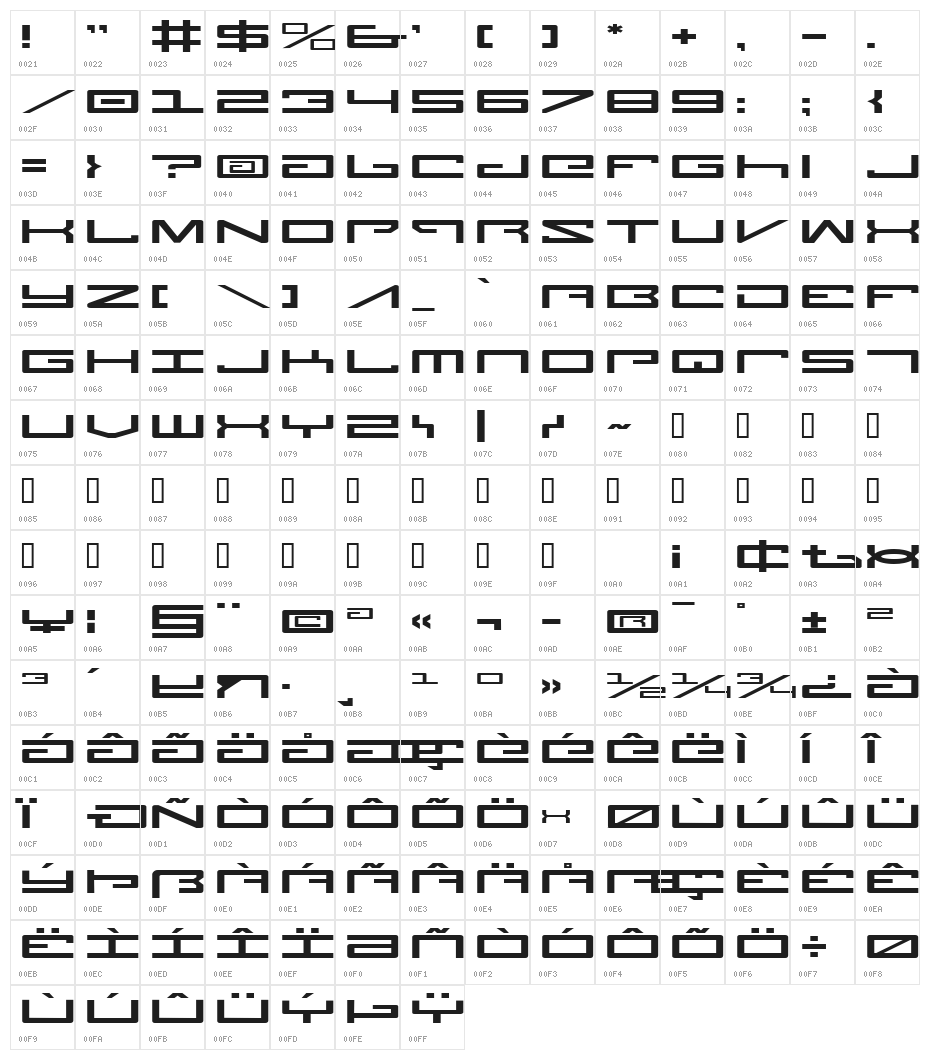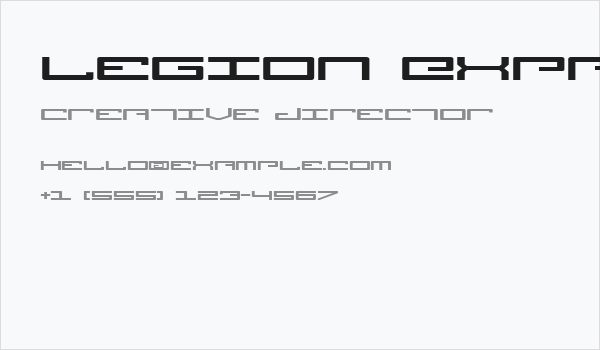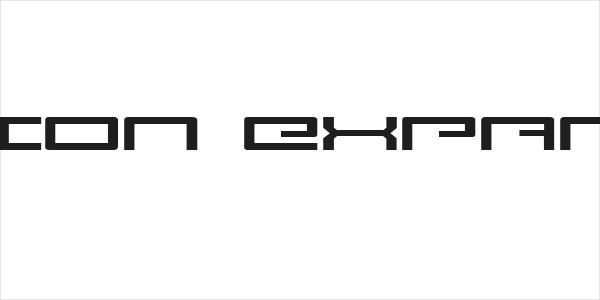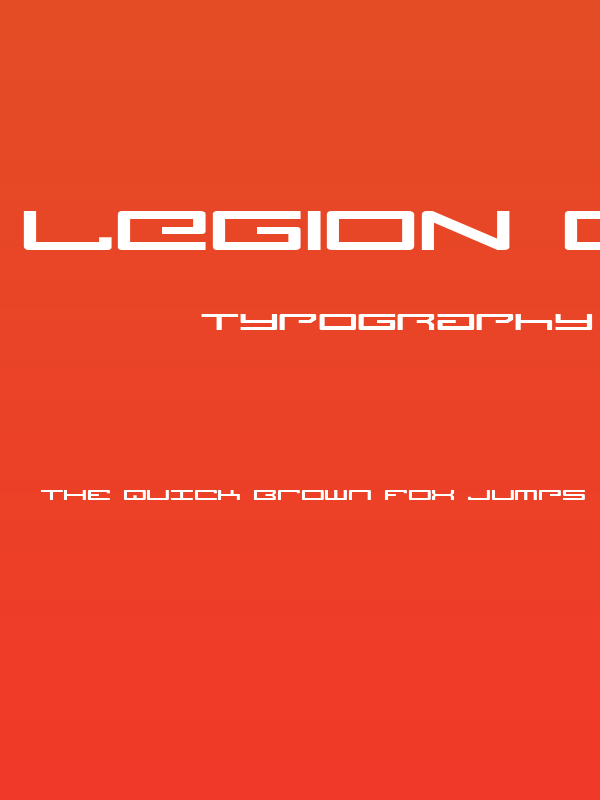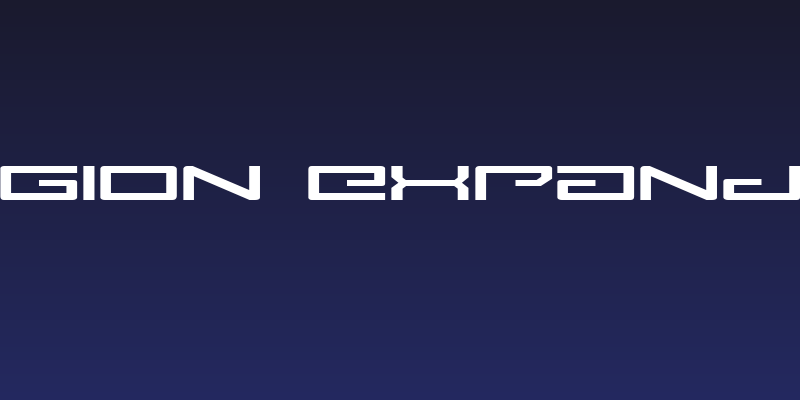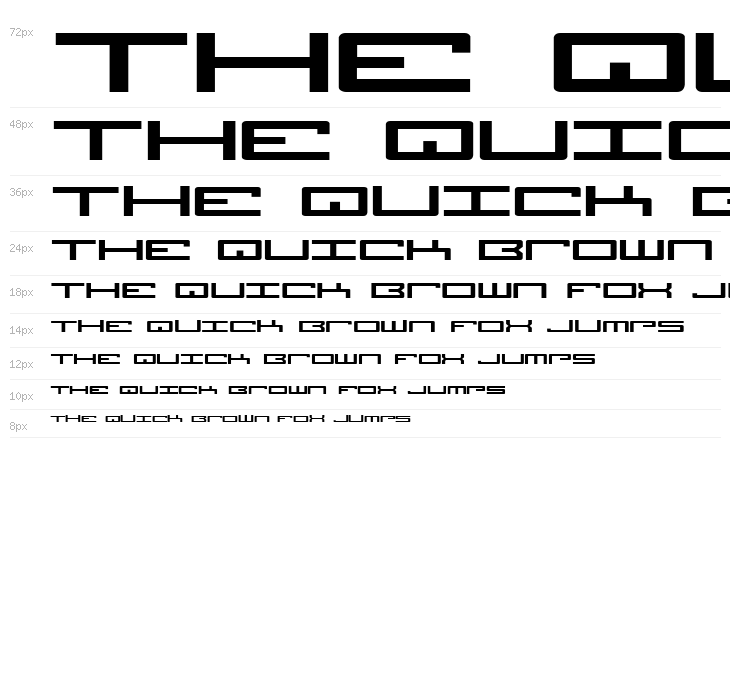
Legion Expanded Font
Legion Expanded Description
This font features a futuristic and geometric design, characterized by its sharp angles and clean lines. The uppercase and lowercase letters maintain a consistent height, creating a uniform appearance. The numerals and special characters are designed to match the angular style, adding to the cohesive look. The font's expanded width gives it a bold presence, making it suitable for attention-grabbing headlines or titles. Its modern aesthetic is ideal for projects that require a sleek and contemporary feel.
| Proposed Projects | Ideal for sci-fi themed designs, tech branding, video game titles, and modern posters. |